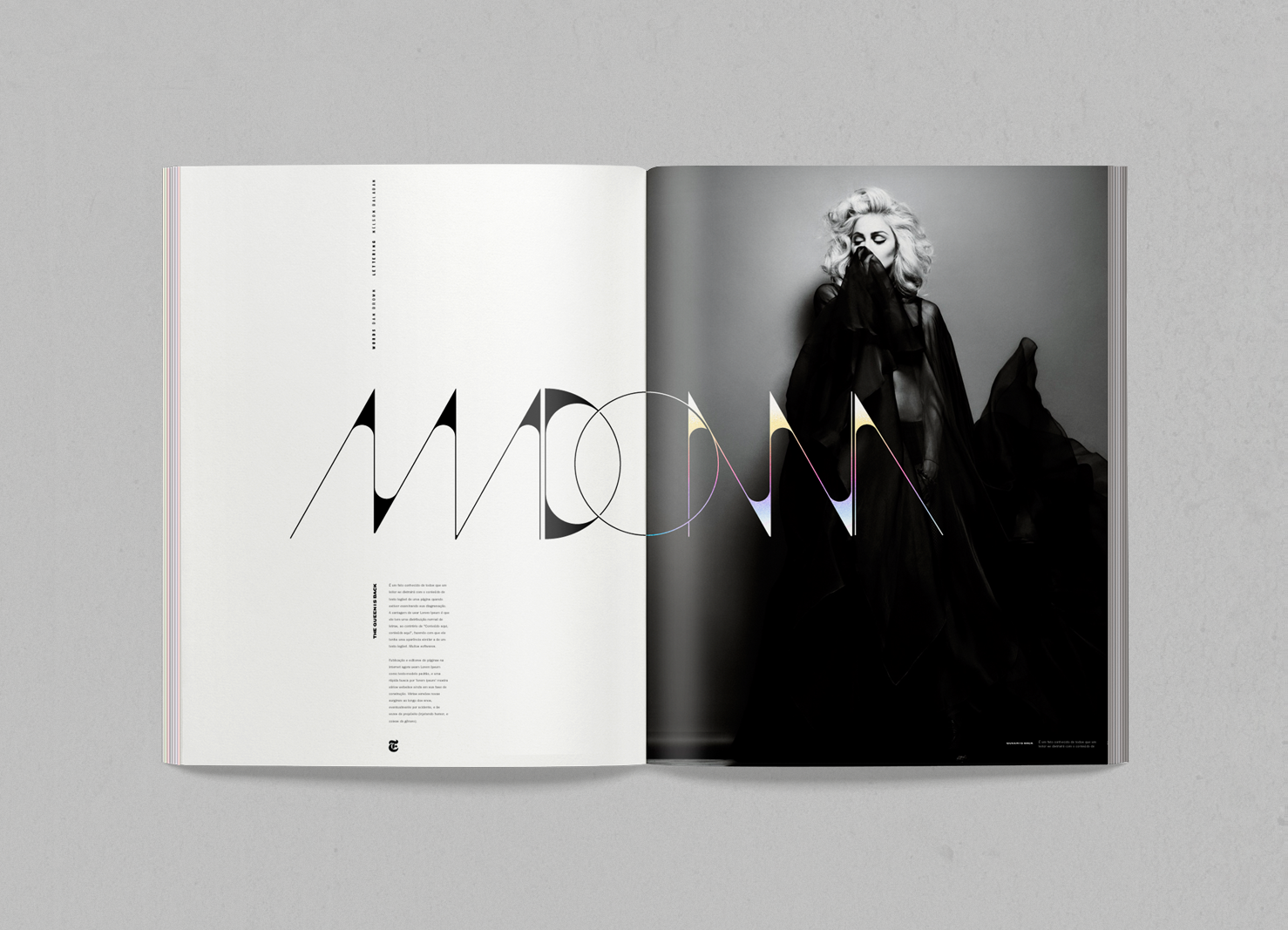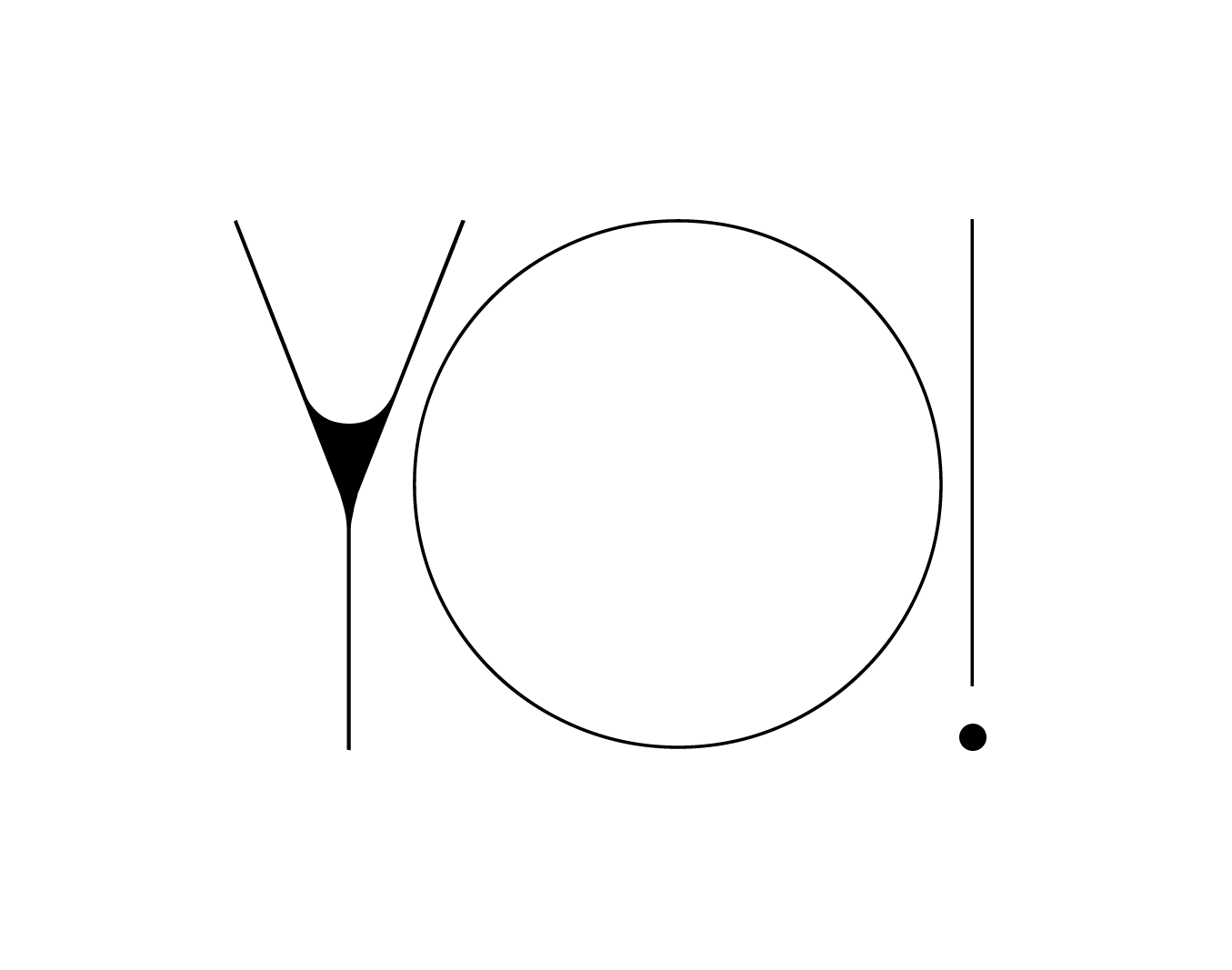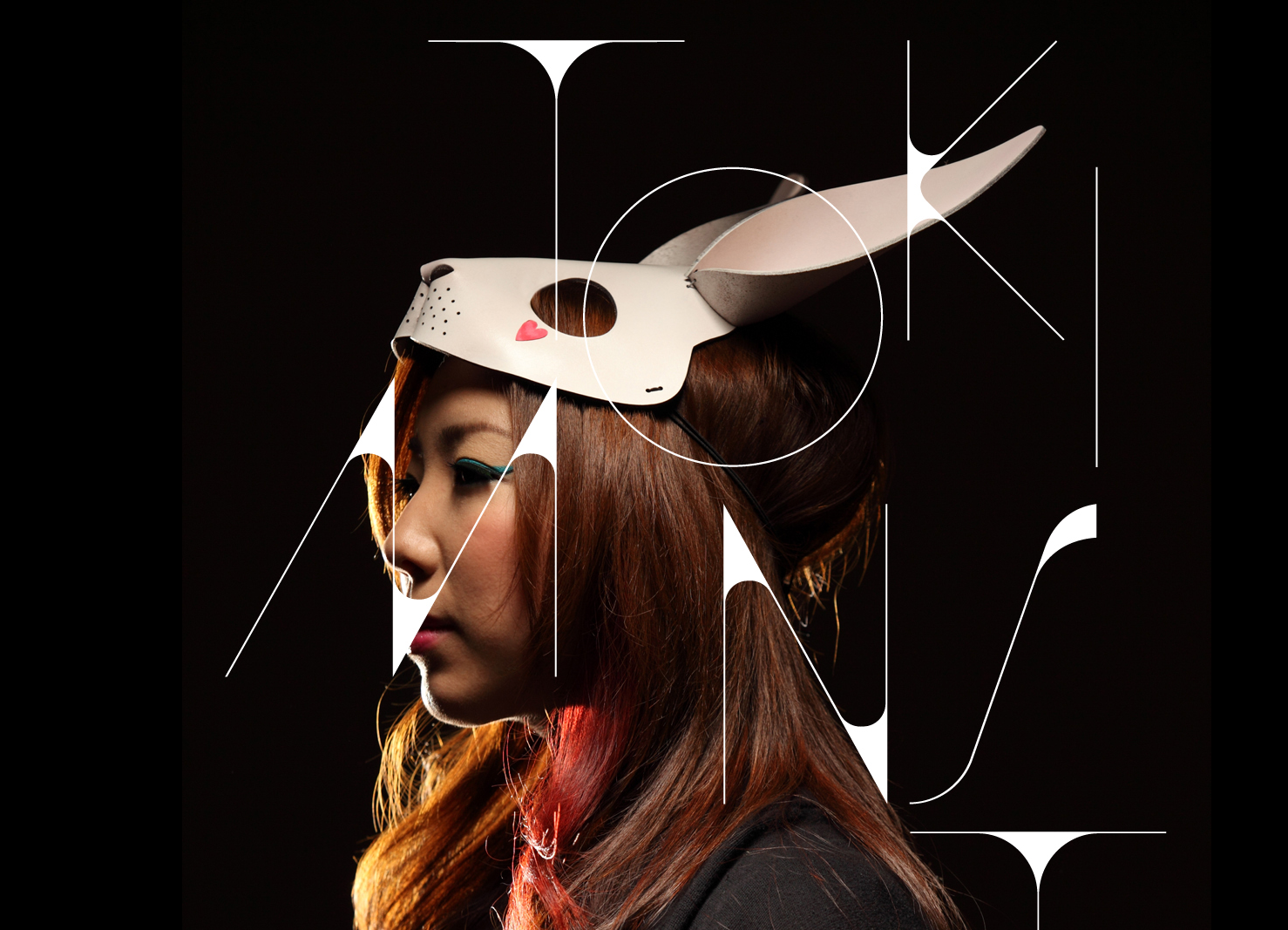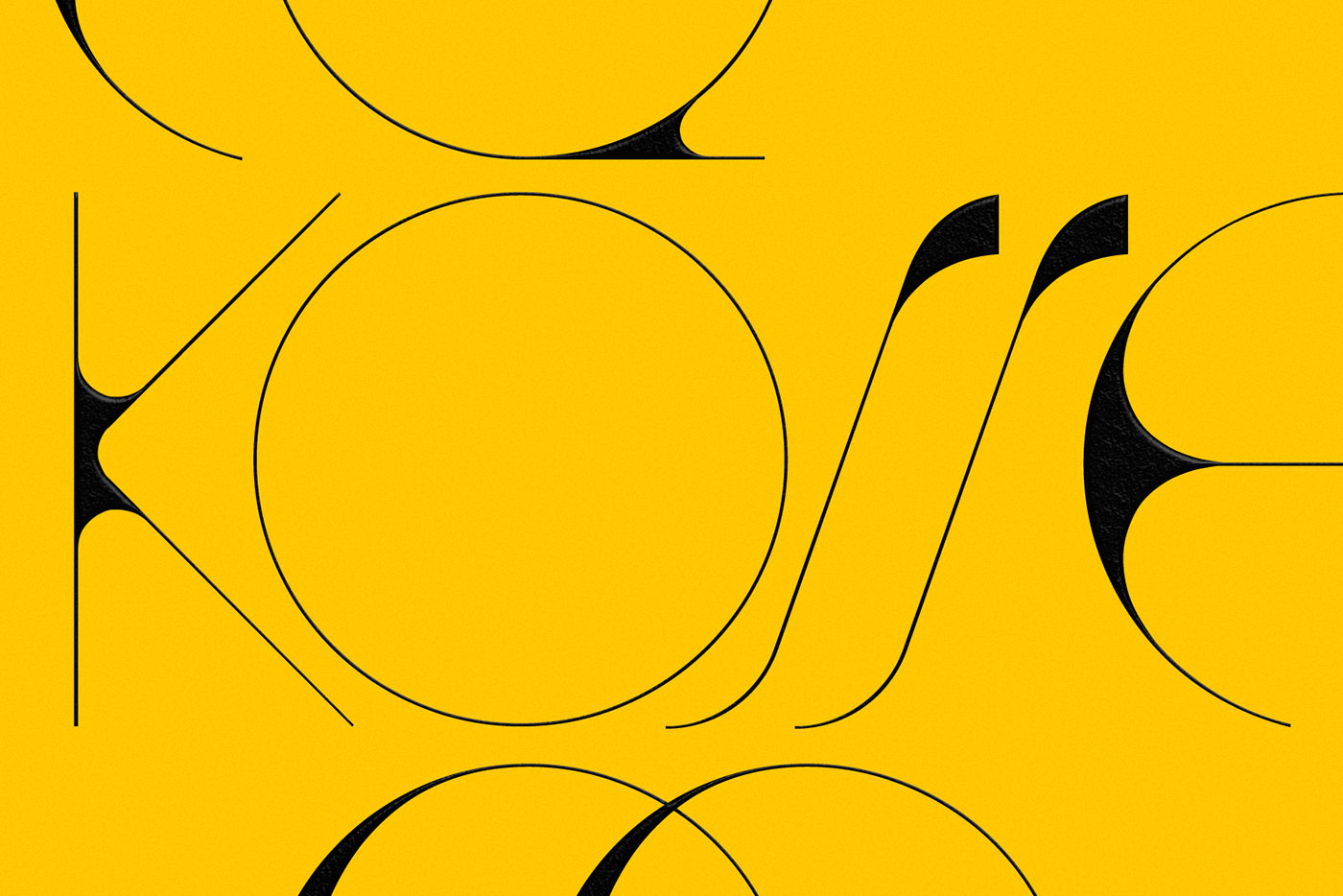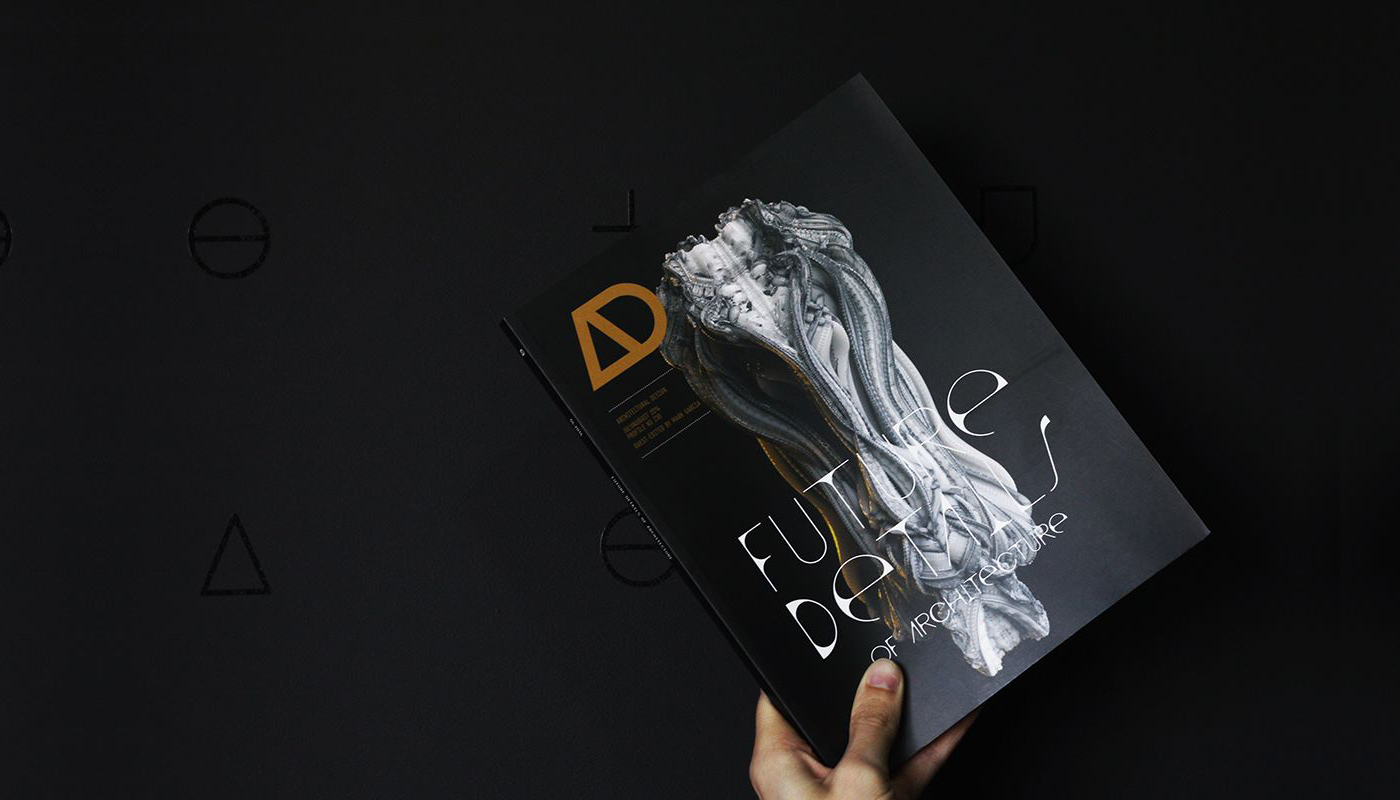
Accent is an experimental free font for commercial and personal use. The display typeface was designed especially for short titles by Nelson Balaban Studio.
Accent was used by brands such as Ellus and Riachuelo (Brazil), AD — Architectural Design magazine (edited since 1920) and German’s Next Top Model TV show.